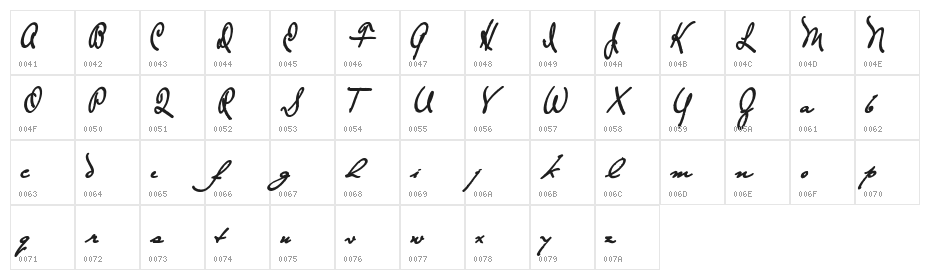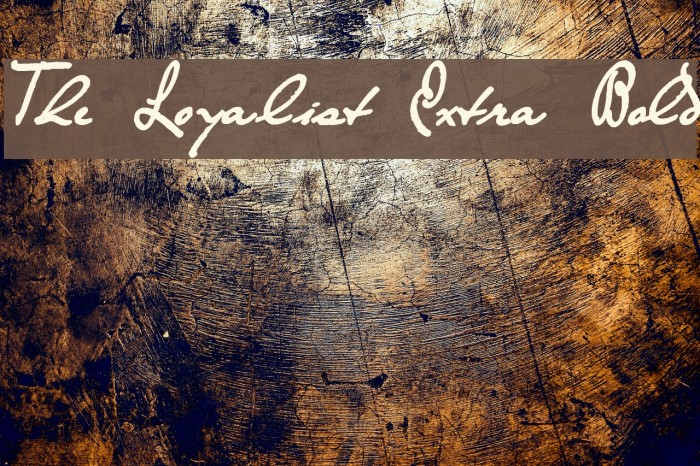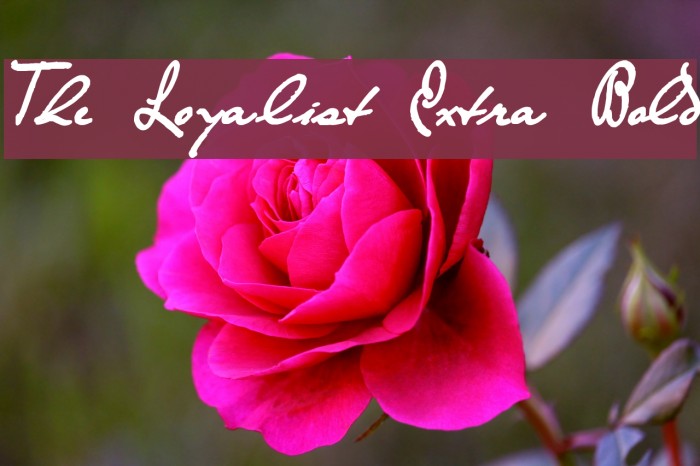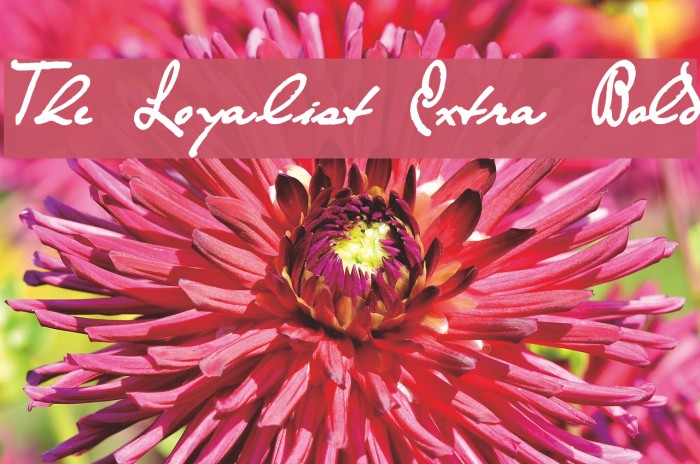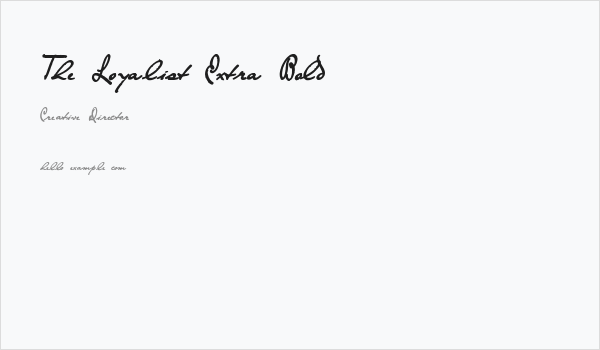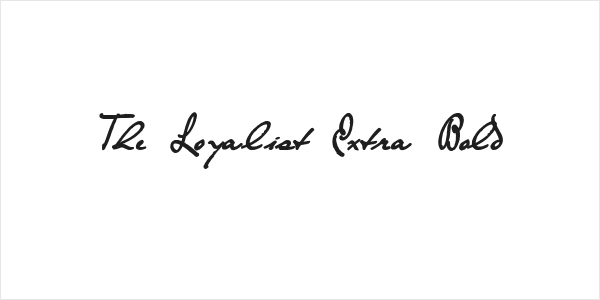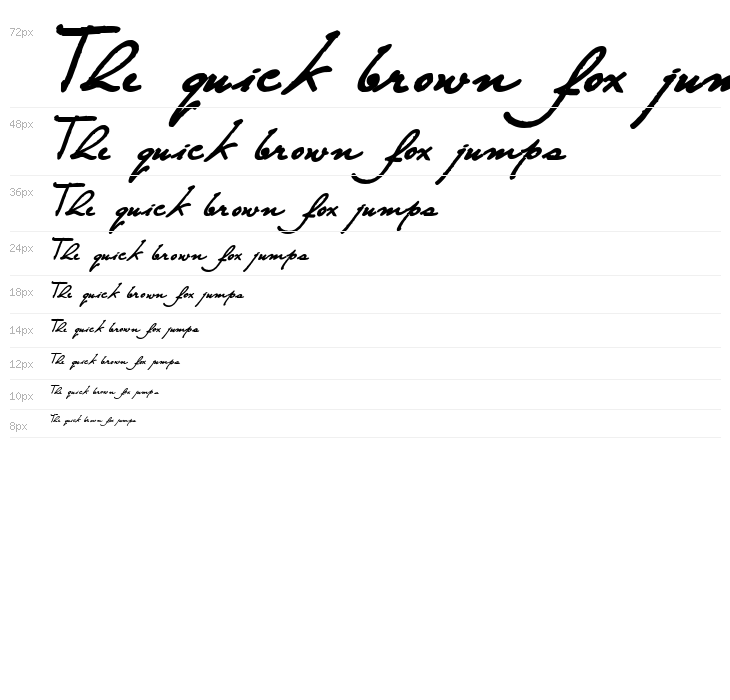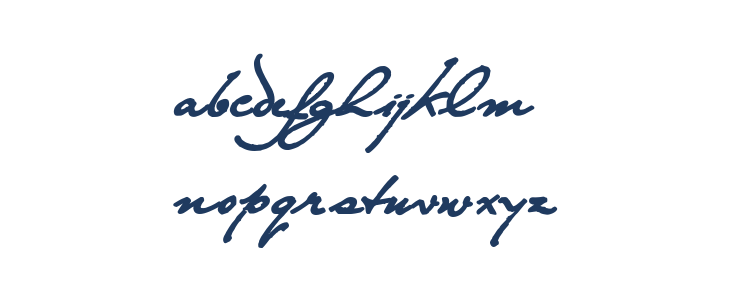
The Loyalist Extra Bold Font
The Loyalist Extra Bold Description
This font features a bold and expressive script style, characterized by its flowing, cursive letterforms. The strokes are thick and dynamic, giving it a sense of movement and energy. The uppercase and lowercase letters are intricately designed, with a high level of detail and a handcrafted feel. The font exudes a sense of elegance and sophistication, making it suitable for projects that require a personal touch. Its unique style is both eye-catching and memorable, perfect for creating impactful designs.
Use CaseLogos, Headlines, Artistic projects
Proposed ProjectsIdeal for wedding invitations, branding, logos, and artistic projects requiring a personal touch.